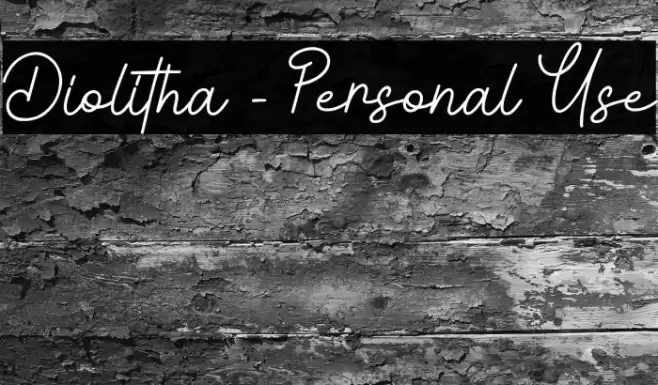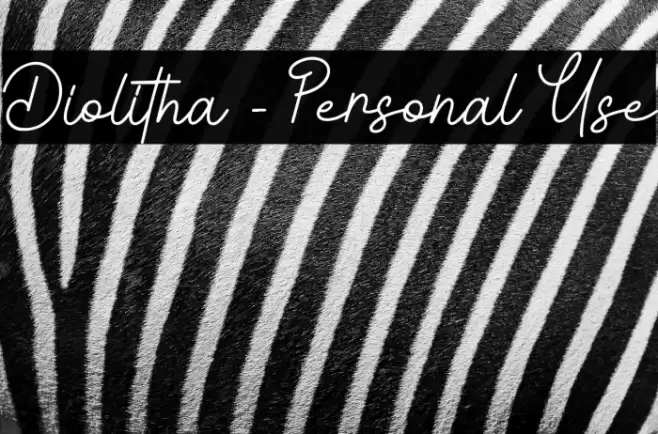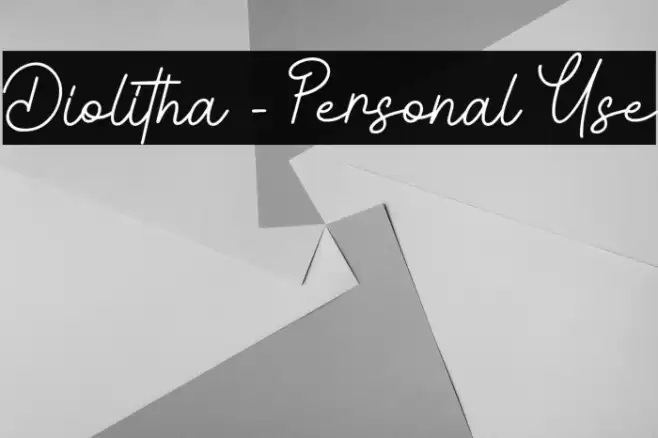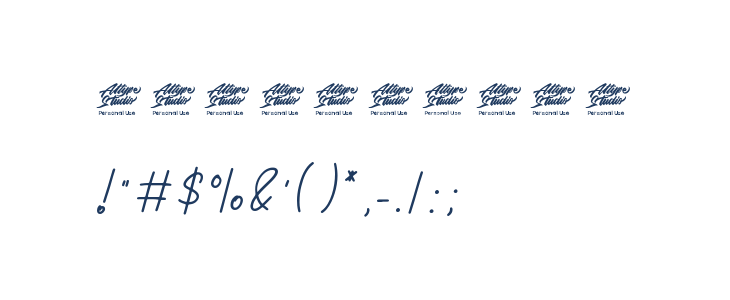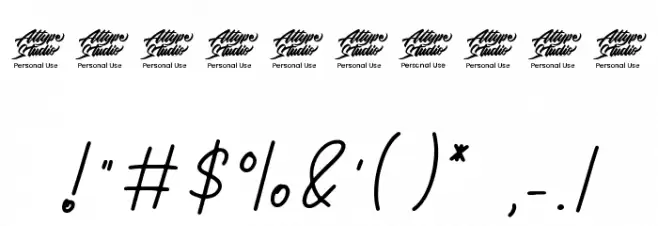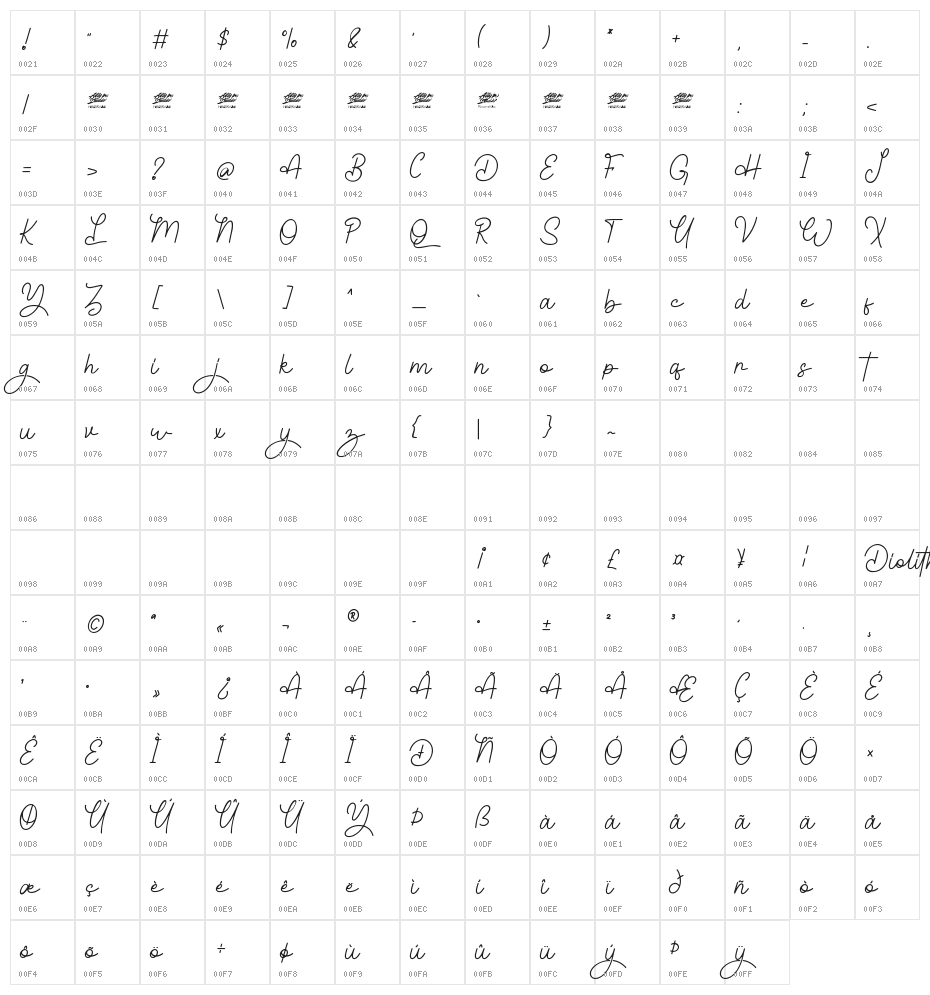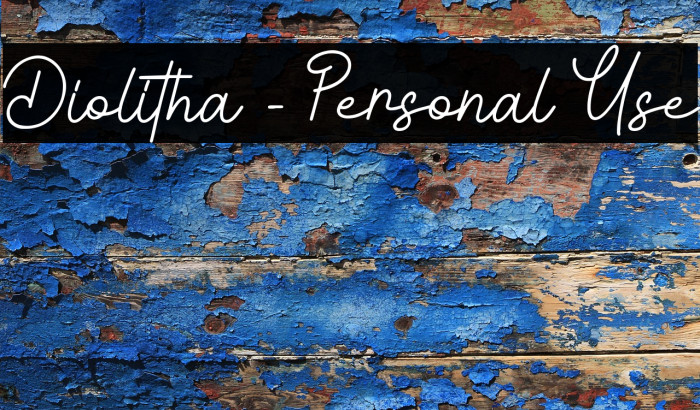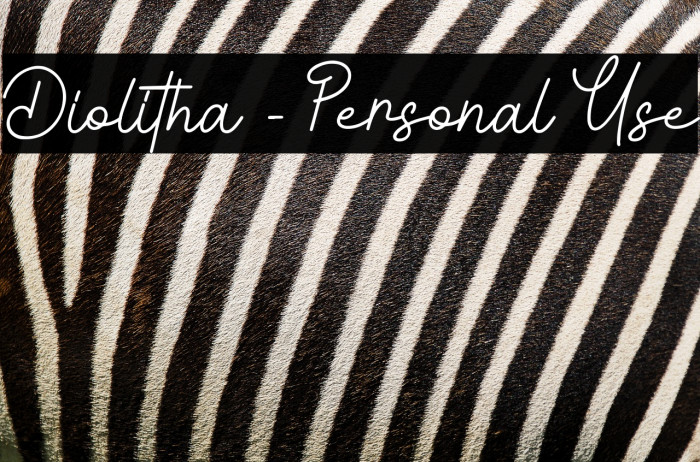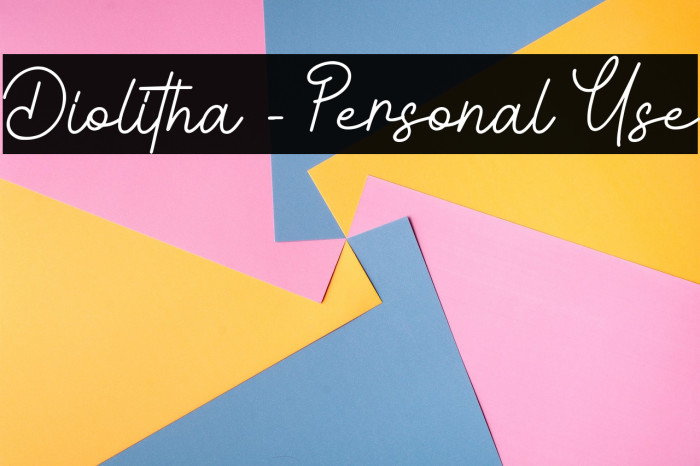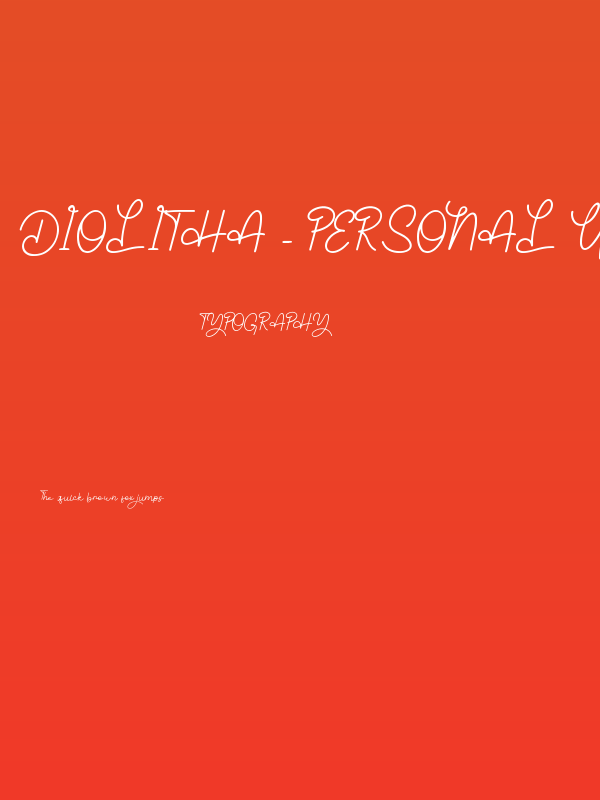
Diolitha - Personal Use Font
Diolitha - Personal Use Description
This font features an elegant and flowing script style, characterized by its smooth, cursive lines and graceful loops. The uppercase letters are ornate, with sweeping curves and flourishes that give a sense of sophistication and fluidity. The lowercase letters maintain a consistent flow, complementing the uppercase with their own subtle embellishments. The font's overall appearance is both delicate and expressive, making it suitable for projects that require a touch of elegance and personal flair. The special characters are designed to match the script's aesthetic, ensuring a cohesive look across all text elements.
An elegant, flowing script font with graceful loops and sophisticated curves from Regular fonts.
- Proposed Projects: Ideal for wedding invitations, greeting cards, personal branding, and elegant logo designs.
- Overall Style: Elegant, Decorative
- Use Case: Logos, Invitations, Personal Branding